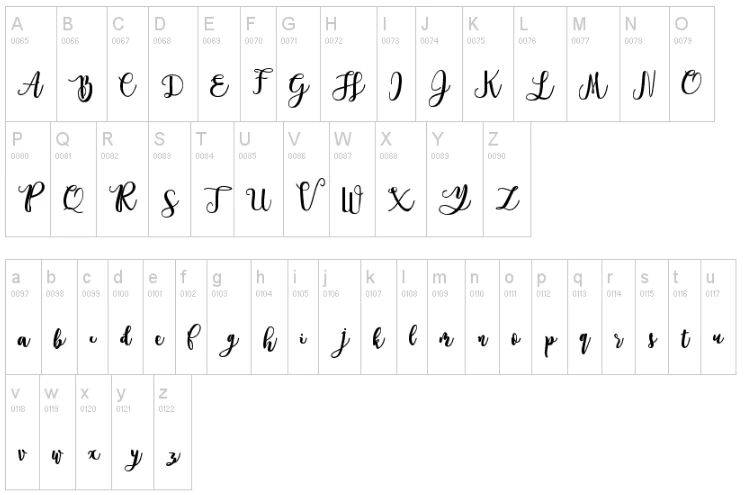
The everlast Font is a flowery font that was made on the base of the watchdogs font. The designer has placed a completely new font distinctive stroke in each alphabet, which we saw the most in the corrupt report animation. As a result, he accepted the commission for this design as an everlasting font. It unfolds divination in the minds of gamers and green designers, in addition to its elegant and unusual appearance. The font is designed and shared by fontspace.
This lovely Font is only available in a single everyday style, with 153 glyphs based on numerals. Furthermore, because it uses the Truetype report format, it can support up to 2048 devices. This entirely satisfied Font includes capital letters, numbers, and punctuation signs. The tiny capitals have been disabled in the typeface. The Font is also compatible with Windows, Apple/Mac OS X, Linux, Cricut, Silhouette, and other cutting machines, which is of outstanding quality.
The typeface is ideal for creating banner layouts, authentic brand texts, product designs, technical files, invitation cards, and wedding cards, among other things. On the other hand, in-sport titling and growth are the best uses of the typeface. The best thing about this most admirable Font is that it’s free for personal as well as professional usage.